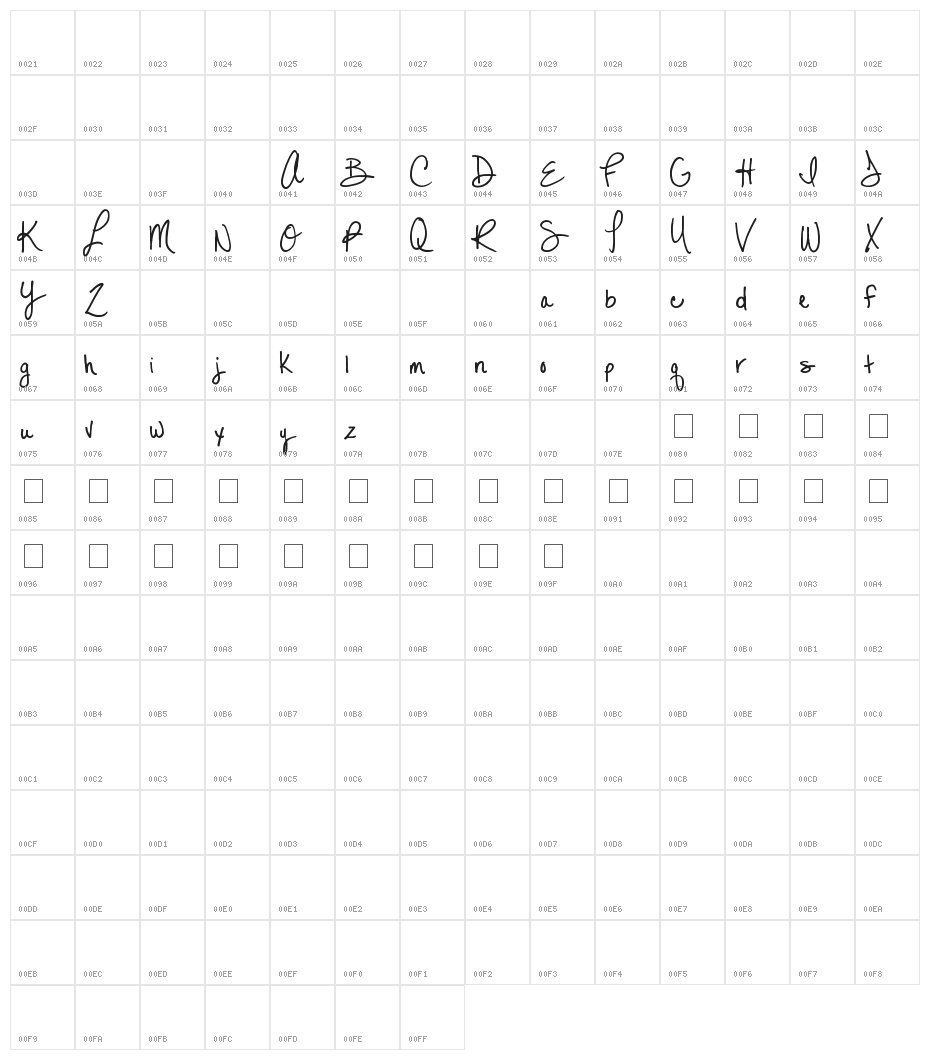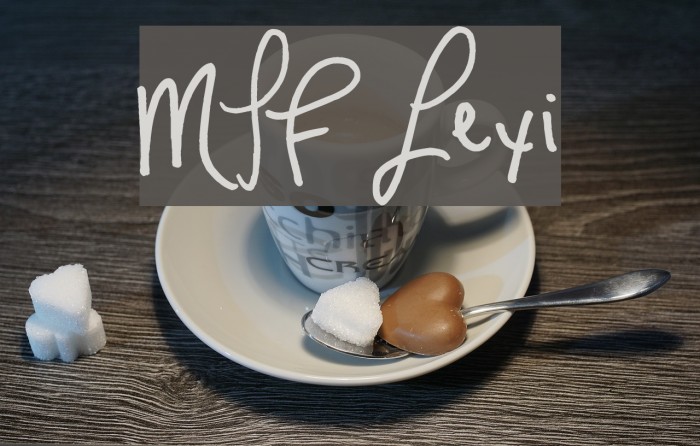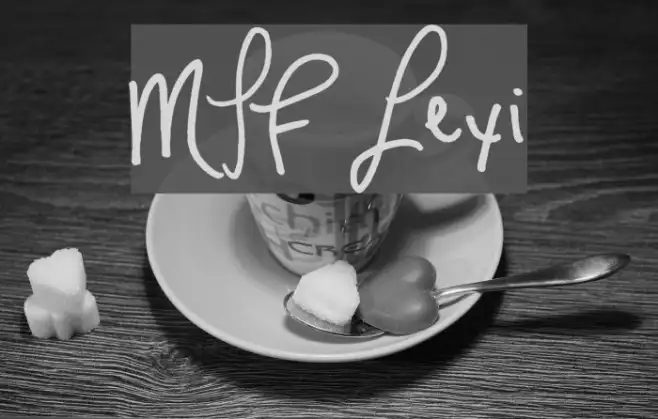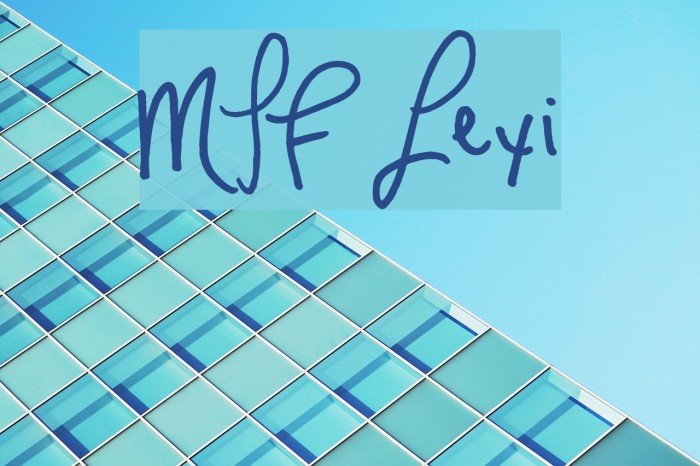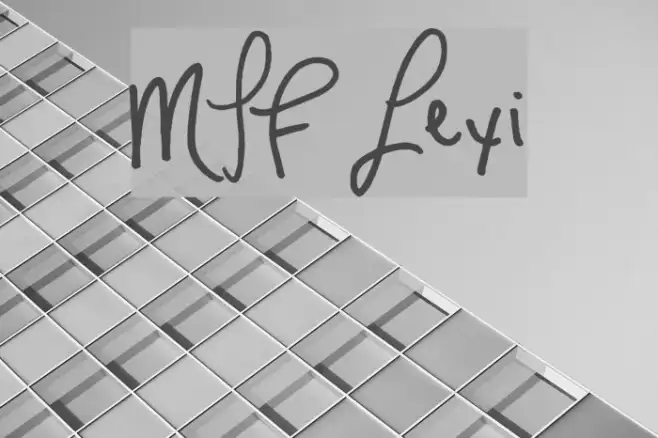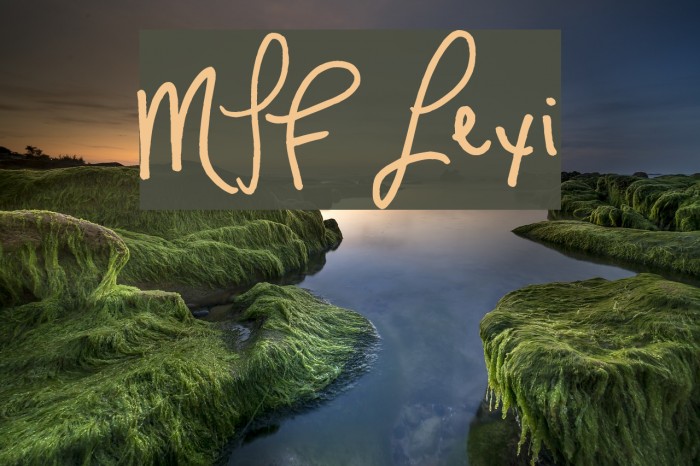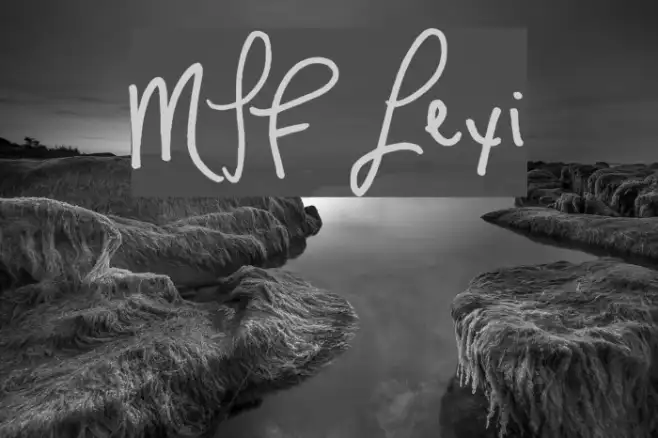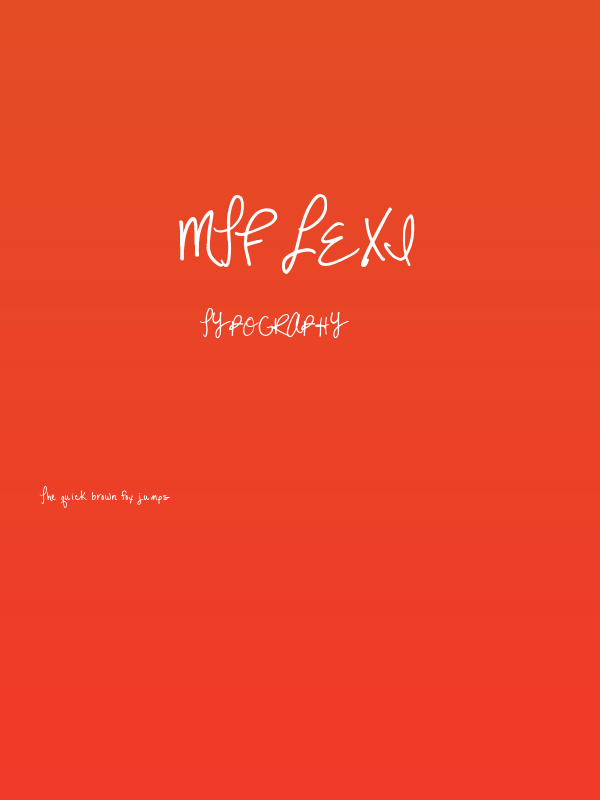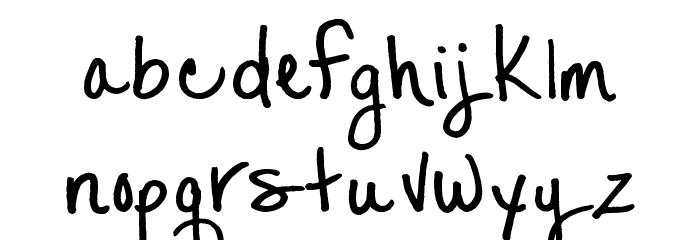
MTF Lexi Font
MTF Lexi Description
This font exhibits a playful and casual handwritten style, characterized by its loose and flowing strokes. The letters are unevenly sized, adding to the informal and personal feel of the typeface. The uppercase letters are bold and dynamic, with a noticeable slant and a sense of movement. The lowercase letters maintain the same lively quality, with rounded forms and varying heights. This font captures the essence of a spontaneous handwritten note, making it ideal for projects that require a personal touch. The overall appearance is both approachable and energetic, with a unique charm that stands out.
| Proposed Projects | Ideal for greeting cards, personal invitations, casual branding, and social media graphics. |